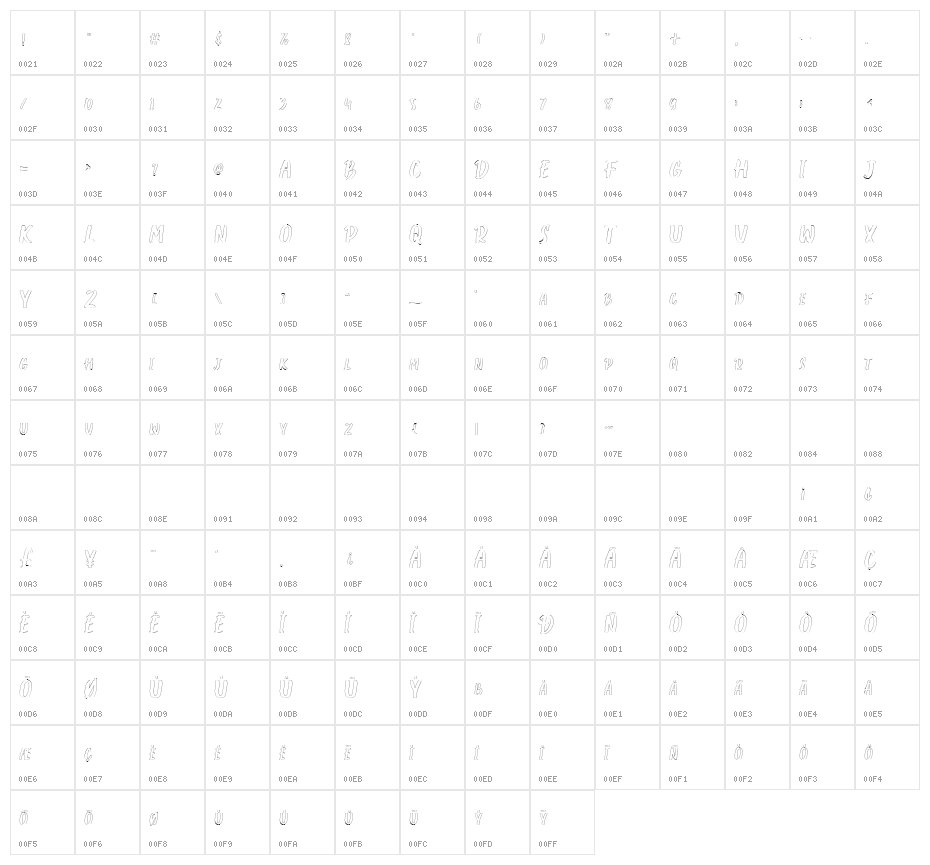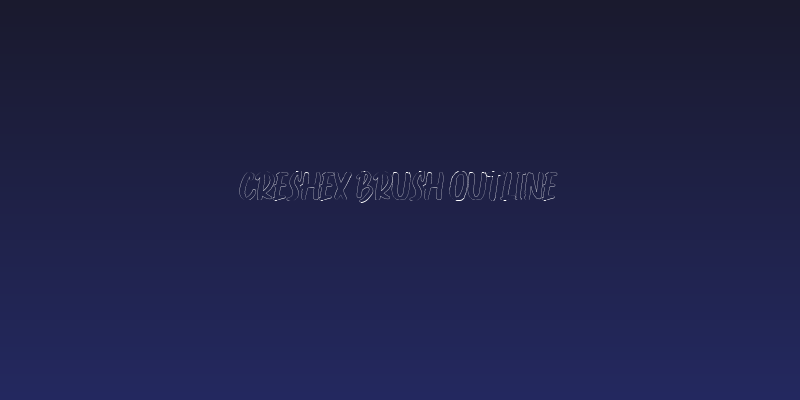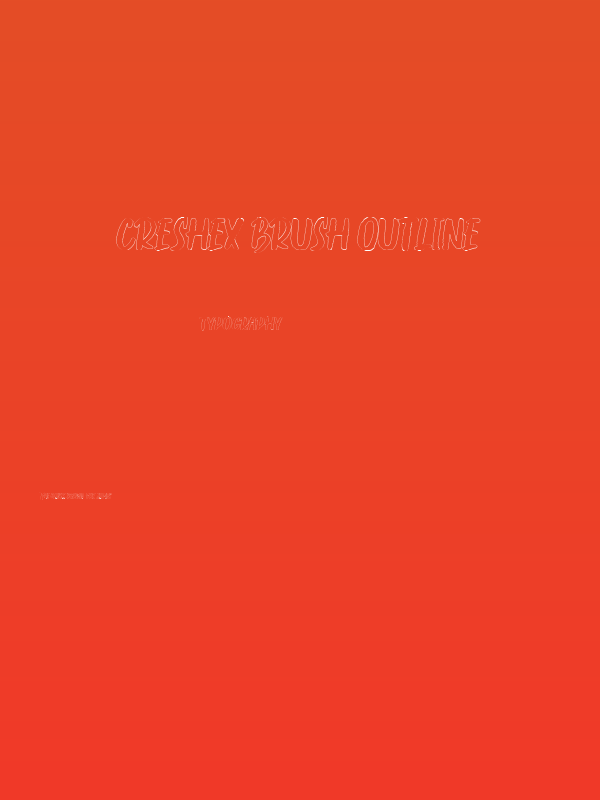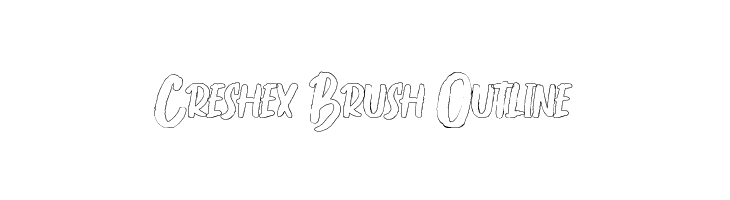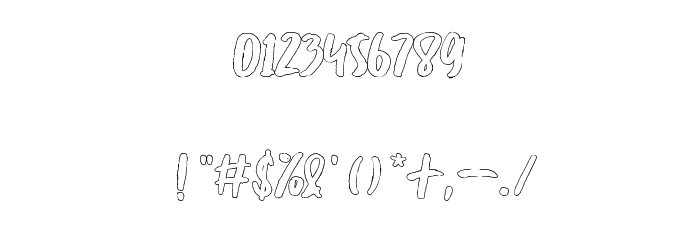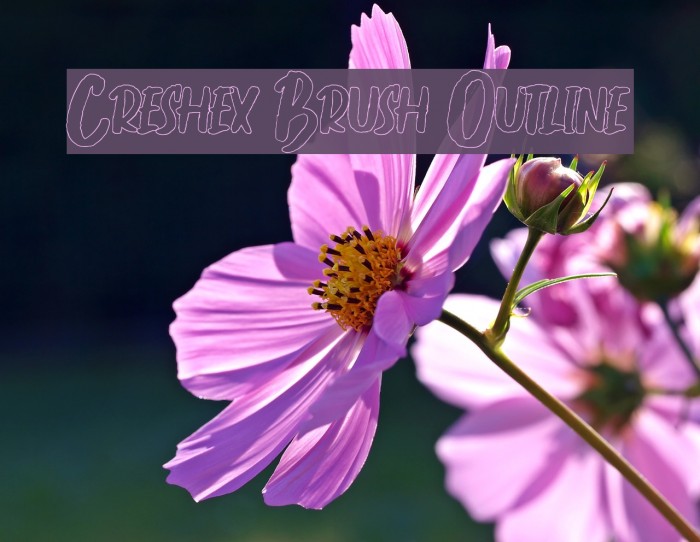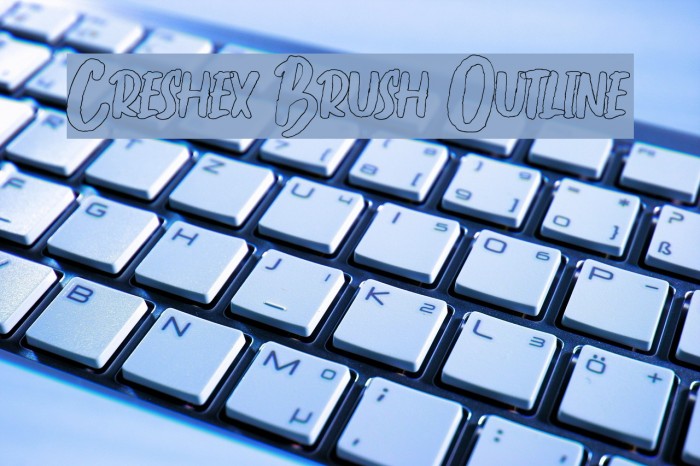
Creshex Brush Outline Font
Creshex Brush Outline Description
This font features a dynamic brush outline style that exudes a casual and artistic flair. The uppercase and lowercase letters are crafted with a hand-drawn appearance, giving them a unique and personal touch. The strokes are bold yet airy, with an outline that creates a sense of movement and energy. The numbers and special characters follow the same aesthetic, ensuring consistency across all elements. This font is perfect for projects that require a playful and informal look, such as creative branding, posters, and social media graphics.
| Use Case | Logos, Headlines |
| Proposed Projects | Ideal for creative branding, posters, and social media graphics. |